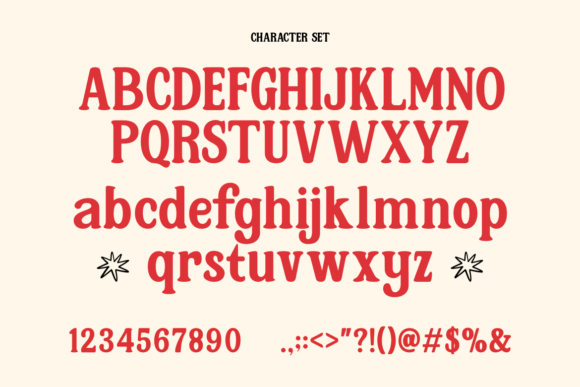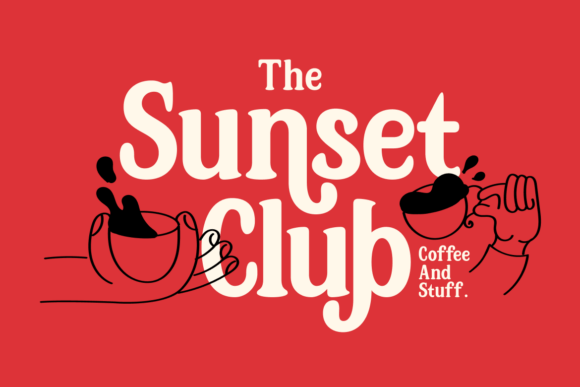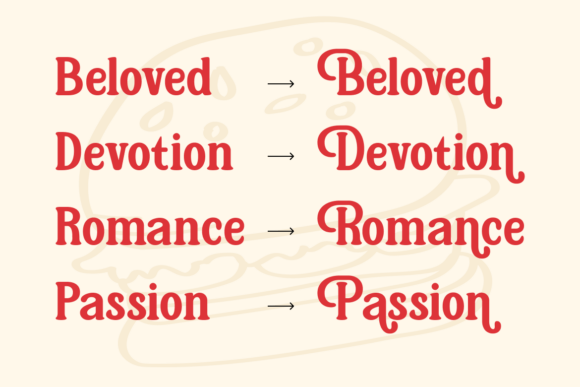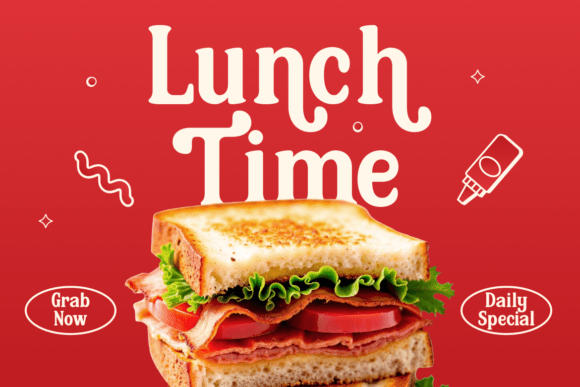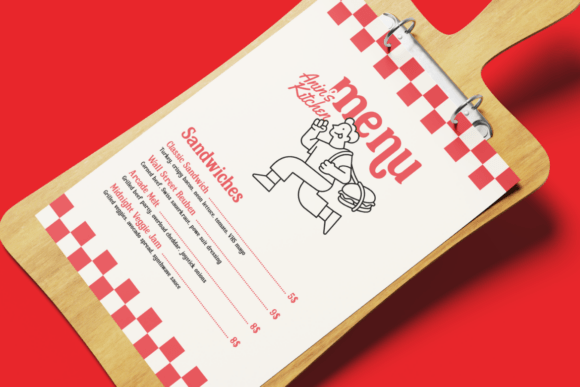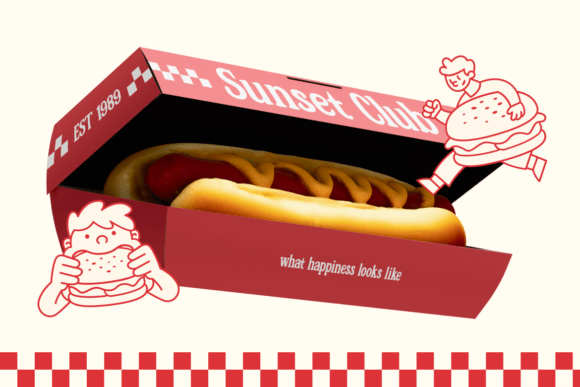
Introducing Alena Toldeon Font: The Perfect Blend of Playfulness and Elegance
In the world of typography, fonts play a crucial role in conveying the tone and personality of a brand. For designers and crafters, finding the right font can be a daunting task. However, if you’re looking for a typeface that exudes playfulness and elegance, look no further than Alena Toldeon Font. Inspired by retro curves and friendly charm, Alena Toldeon is a rounded serif typeface that is sure to capture your audience’s attention.
The Inspiration Behind Alena Toldeon Font
Alena Toldeon Font is a masterful blend of retro and modern elements. The typeface draws inspiration from classic serif fonts, but with a twist. The rounded terminals and soft edges give Alena Toldeon a friendly and approachable feel, making it perfect for brands that want to convey a sense of warmth and approachability.
Key Features of Alena Toldeon Font
So, what makes Alena Toldeon Font so special? Here are some of its key features:
- Soft Terminals: The soft terminals of Alena Toldeon give it a rounded and friendly feel, making it perfect for brands that want to convey a sense of approachability.
- Generous Proportions: The typeface features generous proportions, making it easy to read and perfect for use in a variety of applications, from logos to body text.
- Cheerful Personality: Alena Toldeon has a cheerful personality that makes it perfect for brands that want to convey a sense of fun and playfulness.
Use Cases for Alena Toldeon Font
So, what can you use Alena Toldeon Font for? The possibilities are endless! Here are some use cases to get you started:
- Logos: Alena Toldeon is perfect for logos that need a playful yet elegant touch. Its unique blend of retro and modern elements makes it stand out from the crowd.
- Food Branding: The cheerful personality of Alena Toldeon makes it perfect for food branding. Whether you’re creating a logo for a bakery or a restaurant, Alena Toldeon is sure to make your brand stand out.
- Packaging: Alena Toldeon’s playful yet elegant design makes it perfect for packaging. Whether you’re creating labels for a product or designing a brochure, Alena Toldeon is sure to add a touch of sophistication.
- Children’s Publishing: The friendly and approachable feel of Alena Toldeon makes it perfect for children’s publishing. Whether you’re creating a picture book or a young adult novel, Alena Toldeon is sure to delight your readers.
Why Choose Alena Toldeon Font?
- Unique Design: Alena Toldeon has a unique design that sets it apart from other fonts. Its blend of retro and modern elements makes it perfect for brands that want to stand out.
- Versatility: Alena Toldeon is a versatile font that can be used in a variety of applications, from logos to body text.
- Easy to Read: The generous proportions and soft terminals of Alena Toldeon make it easy to read, even at small sizes.